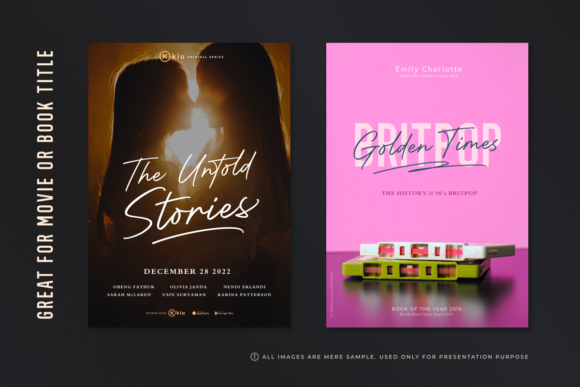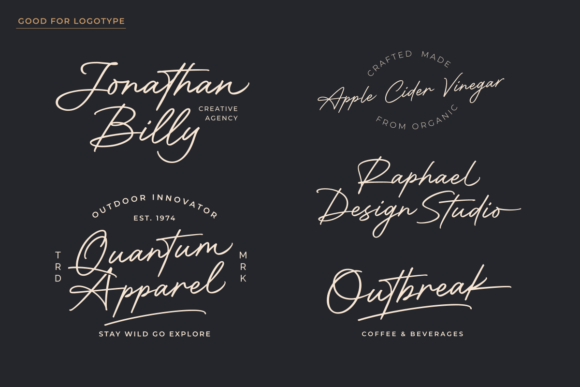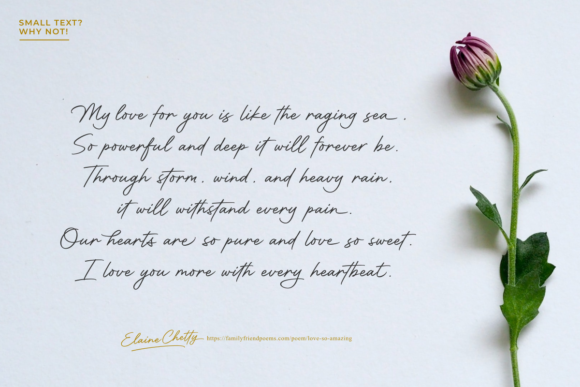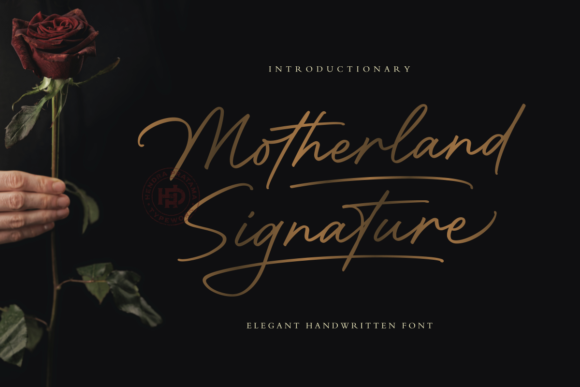
Introduction to Motherland Signature Font
Motherland Signature is a lovely and timeless handwritten font.
It is the best choice for creating eye catching logos, branding and quotes This font is PUA encoded which means you can access all of the glyphs and swashes with ease.
Key Features of Motherland Signature Font
Motherland Signature Font offers exceptional quality and versatility, making it a valuable addition to your design toolkit. Whether you’re creating for personal projects or commercial use, Motherland Signature Font delivers professional results.